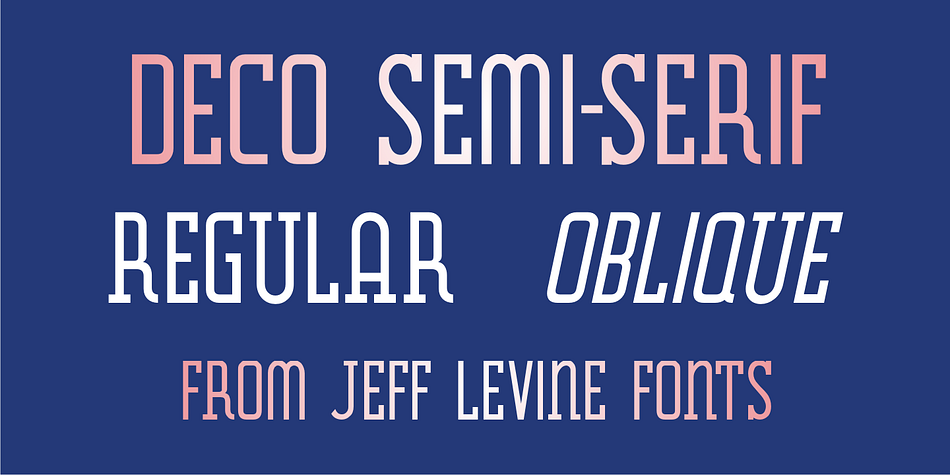
Deco Semi Serif JNL is a display serif and art deco font family. This typeface has two styles and was published by Jeff Levine Fonts.
Deco Semi Serif JNL was modeled from the hand lettered title on the sheet music cover for the 1933 song “Another Perfect Day Has Passed Away”.
This interesting design blend of serif, sans serif and partial-serif characters commands attention with its eccentric mix of letter forms, and is available in both regular and oblique versions.